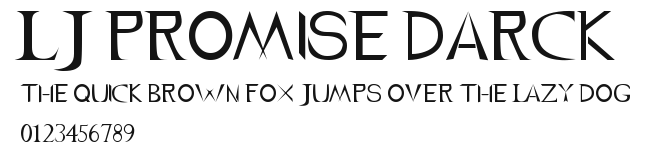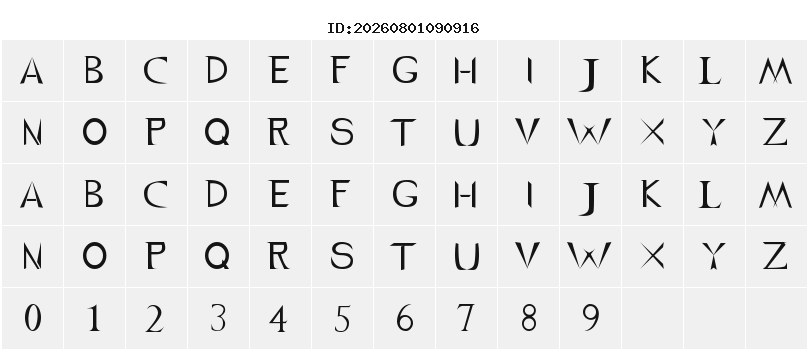
• Font Name: LJ Promise Darck
• Full Font Name: LJ Promise Darck
About LJ Promise Darck.ttf
LJ Promise Darck.ttf is a modern, elegant sans-serif font designed for ultimate readability and visual harmony. Perfect for branding, headlines, web design, and print materials.